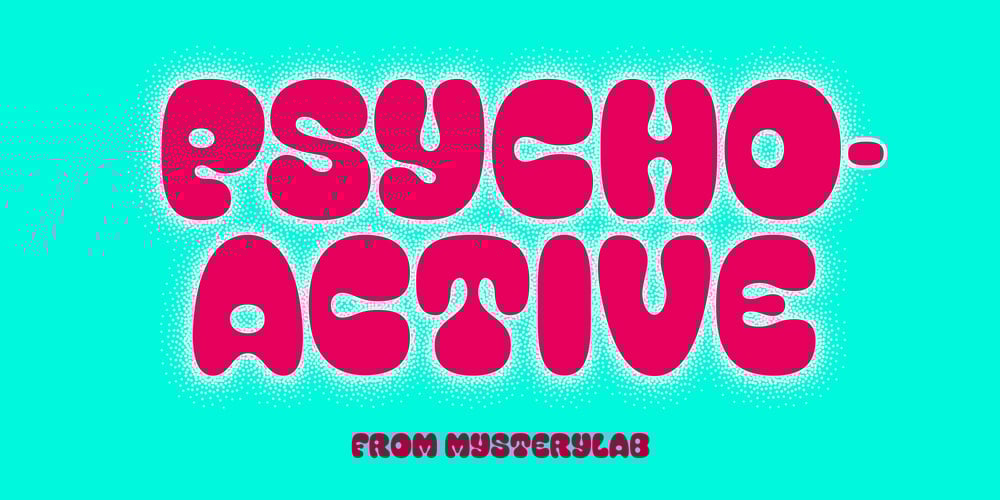
Psychoactive Font Family was designed by Mott Jordan and published by Mysterylab. Psychoactive contains 1 styles and family package options. Psychoactive is a familiar style of pop psychedelic lettering; reinvented, fine-tuned, and balanced to rounded blobs of perfection. This all-caps + small-caps font is a great workhorse for retro t-shirt designs, posters, and album covers. Super-legible and perfectly kerned, it’ll get your message out in style.